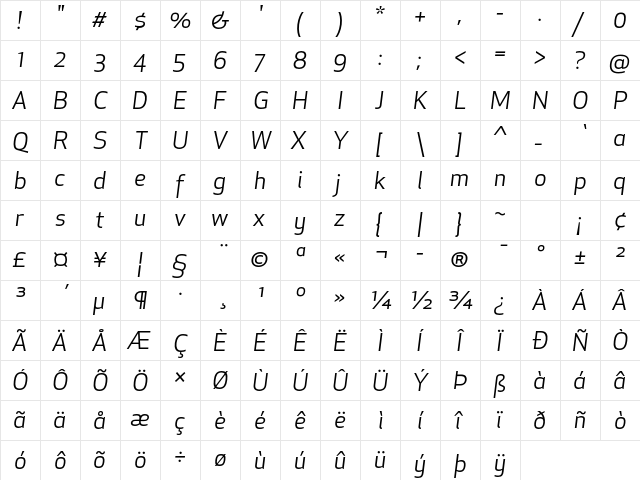
Apex New Book Italic
| Foundry | Village Type & Design LLC (Thirstype) |
| Designer | chester (orignally designed with Rick Valicenti) |
| Version | Version 1.001 2006, Revised version replacing Apex Sans |
Design Context for Apex New Typeface
Apex New is a composed and adaptable typeface that performs quietly and consistently across a wide range of design contexts. Its italic angle brings a sense of urgency and motion to the letterforms.
Pro Tip: Use Apex New for emphasis, pull quotes, and subheadings where its slanted energy can add rhythm to the layout.